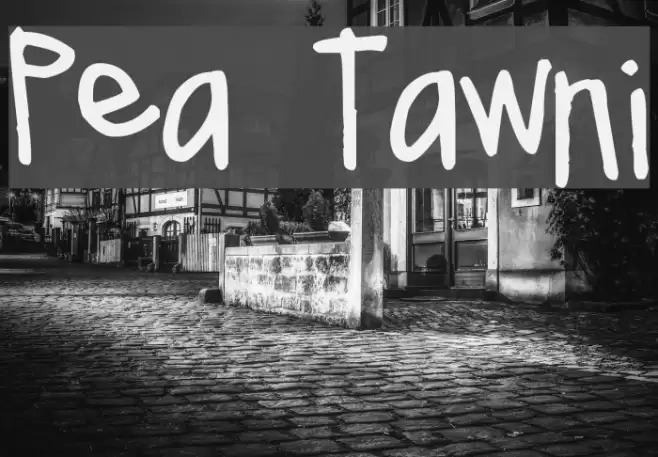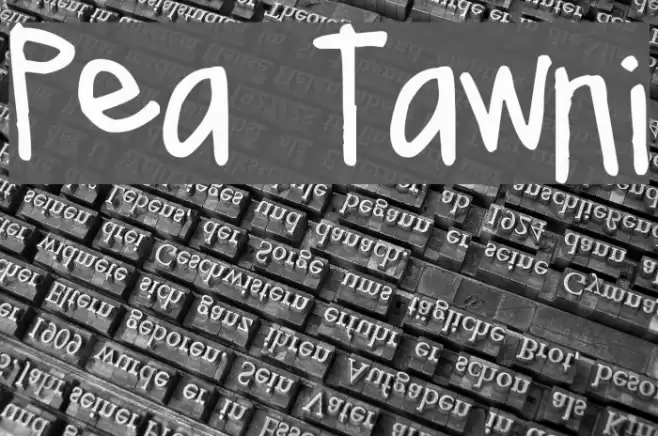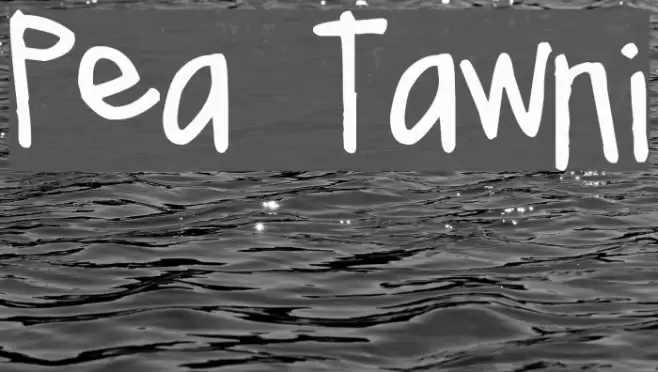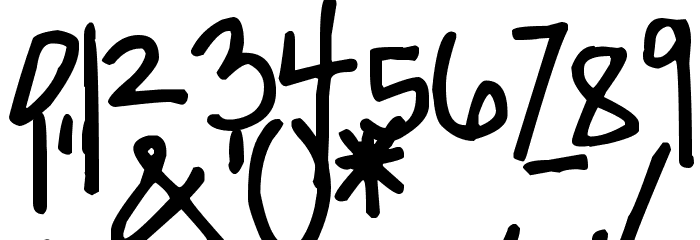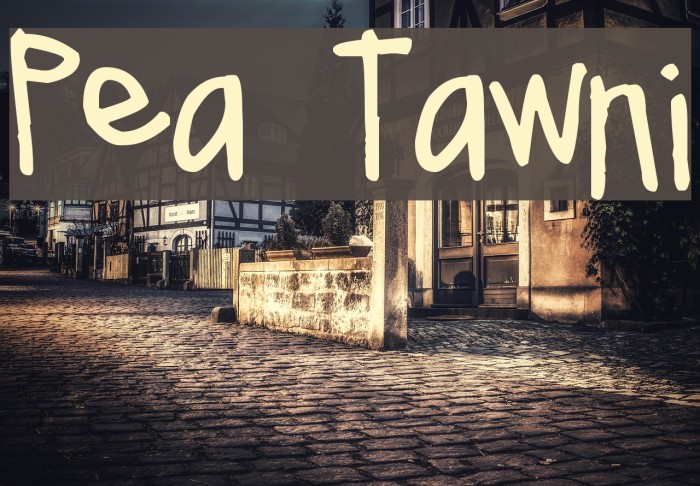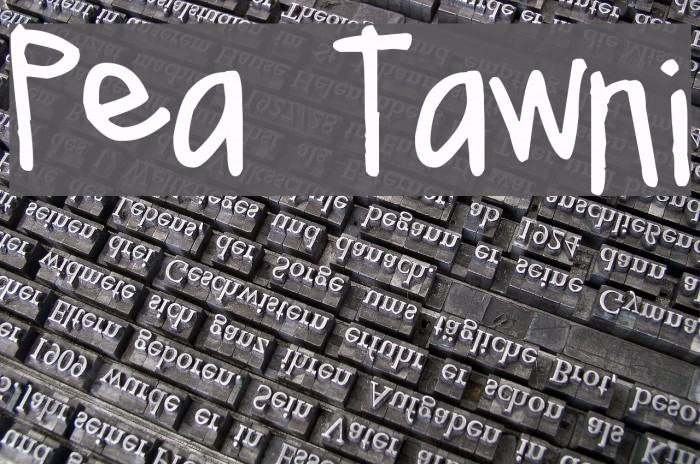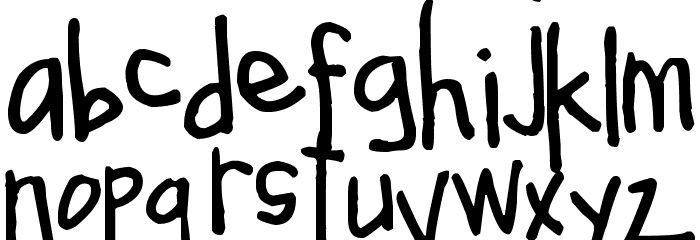
Pea Tawni Font
Pea Tawni Description
This font features a playful and casual handwritten style, characterized by its irregular and dynamic strokes. The letters are bold and slightly uneven, giving a personal and informal touch. The uppercase and lowercase letters maintain a consistent style, with rounded edges and varying line thicknesses that add to its charm. Numbers and special characters follow the same whimsical design, making it suitable for creative projects. The overall appearance is approachable and friendly, perfect for conveying a relaxed and informal tone.
A playful, handwritten font with bold, irregular strokes and a casual style from Uncategorized fonts.
- Proposed Projects: Ideal for greeting cards, children's books, personal blogs, and informal branding.
- Overall Style: Casual, Playful
- Use Case: Headlines, Informal text, Creative projects